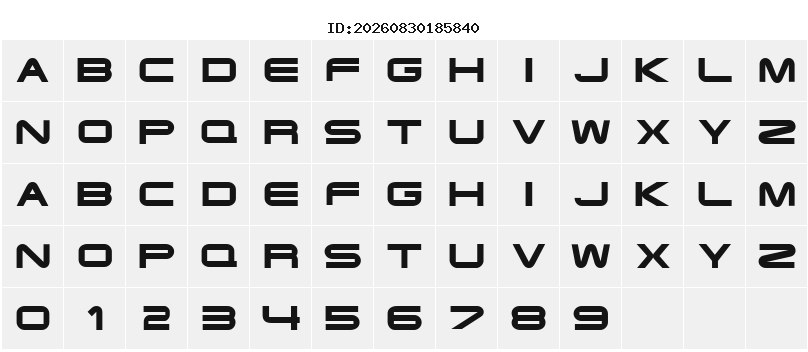
• Font Name: Terminator Cyr 4
• Font Style: Semi-expanded Bold
• Font ID: AllenR.Walden-eng.&AlexKazantsev-rus.: Terminator Cyr 4 Semi-expanded Bold: 2001
• Full Font Name: Terminator Cyr 4 Semi-expanded Bold
• Manufacturer: Allen R. Walden - eng. & Alex Kazantsev - rus.
Terminator Cyr 4.ttf is a modern, elegant sans-serif font designed for ultimate readability and visual harmony. Perfect for branding, headlines, web design, and print materials.